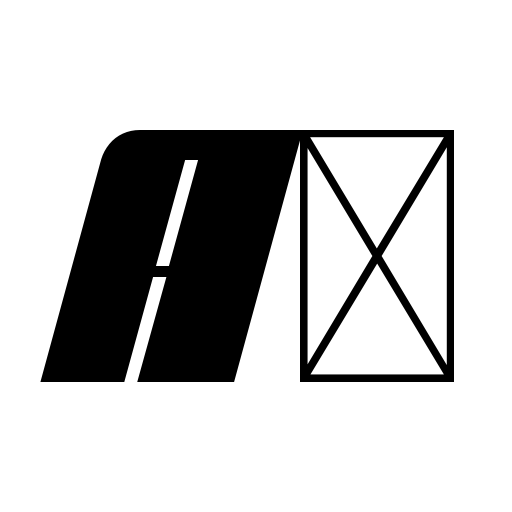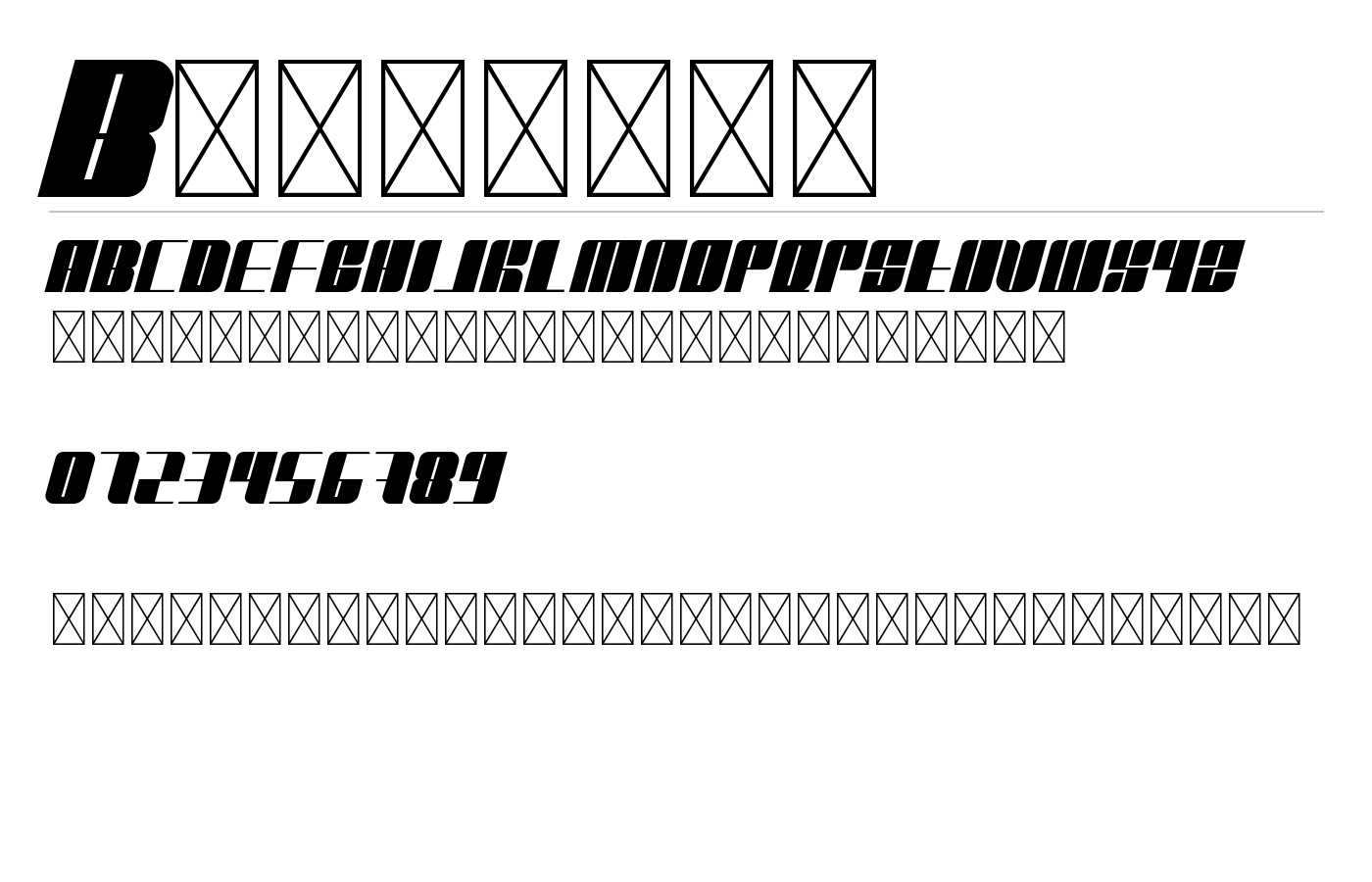
Belitang is a bold, condensed sans serif display font with a strong, futuristic vibe. Its geometric, sharply angled letterforms and slanted stance make it ideal for attention-grabbing headlines, logos, and branding that demand a modern, dynamic feel. This font works best in designs that aim to convey speed, strength, and innovation.
Belitang Font
About Belitang Font
| Font family | Belitang Font |
| Designer | M Ansori Zakaria |